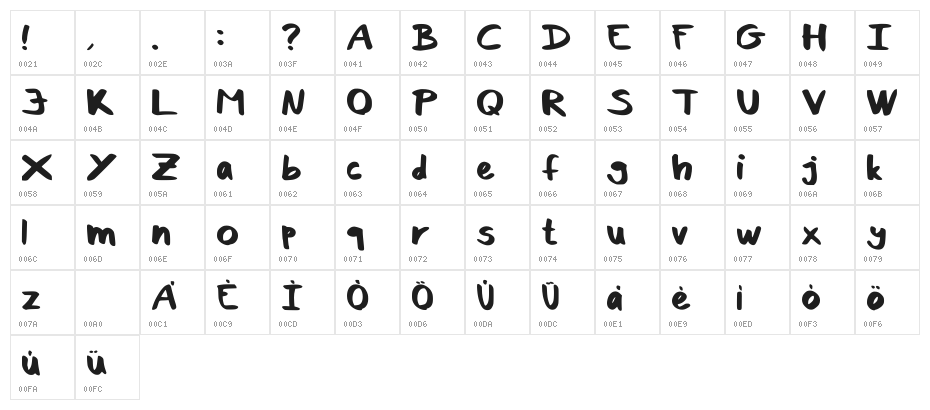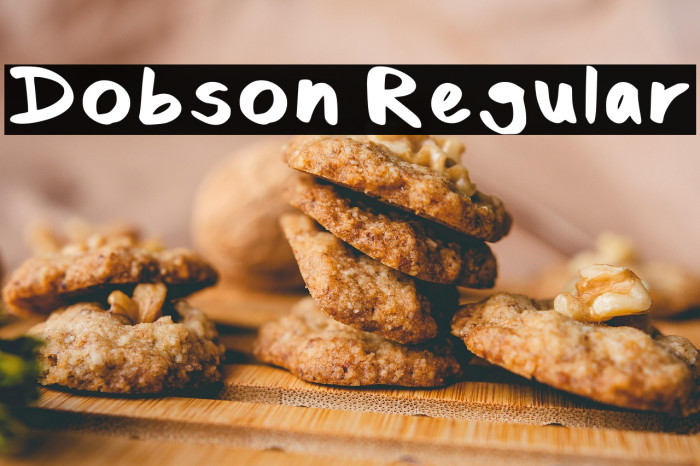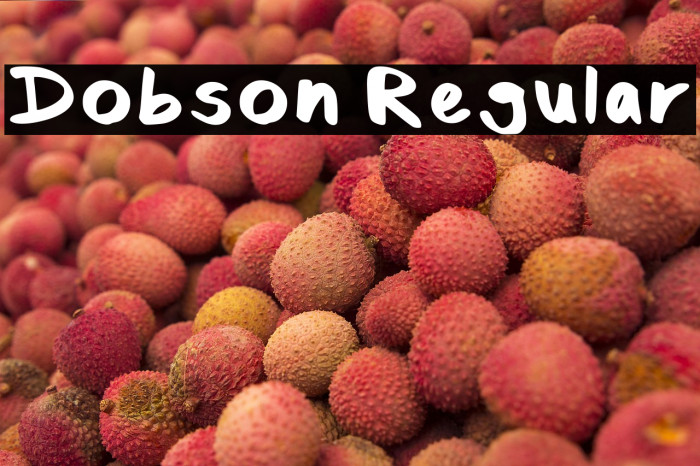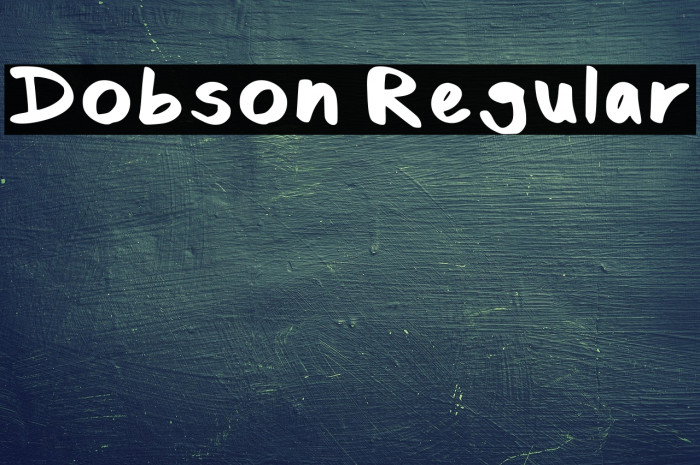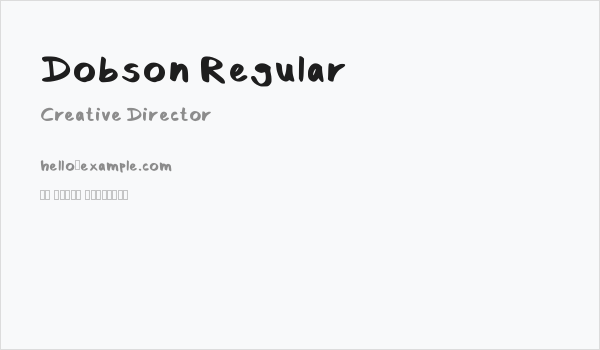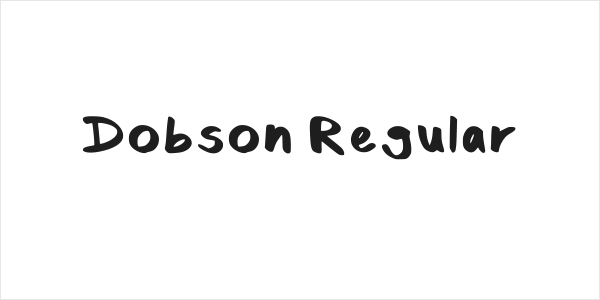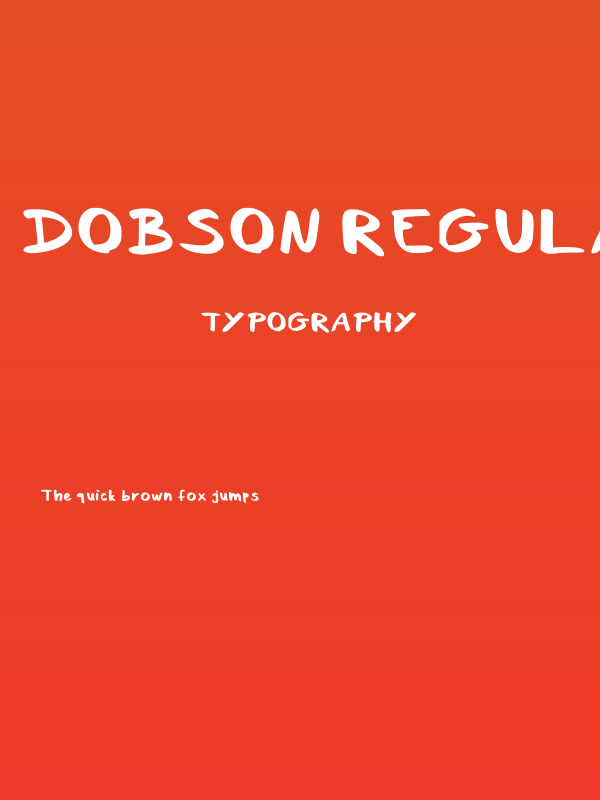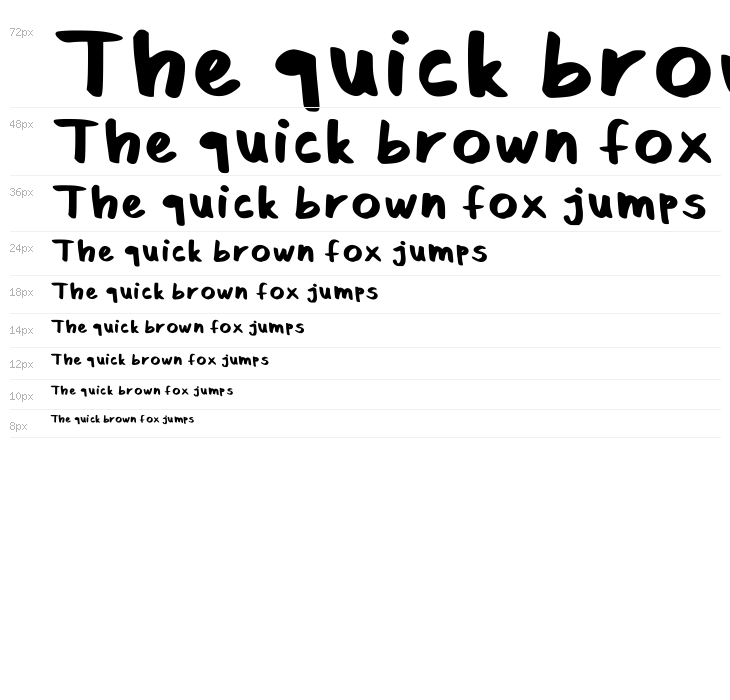
Dobson Regular Font
Dobson Regular Description
A playful, handwritten font with irregular strokes and a casual appearance.
| Use Case | Headlines, Informal text, Branding |
| Proposed Projects | Children's books, casual invitations, playful branding. |